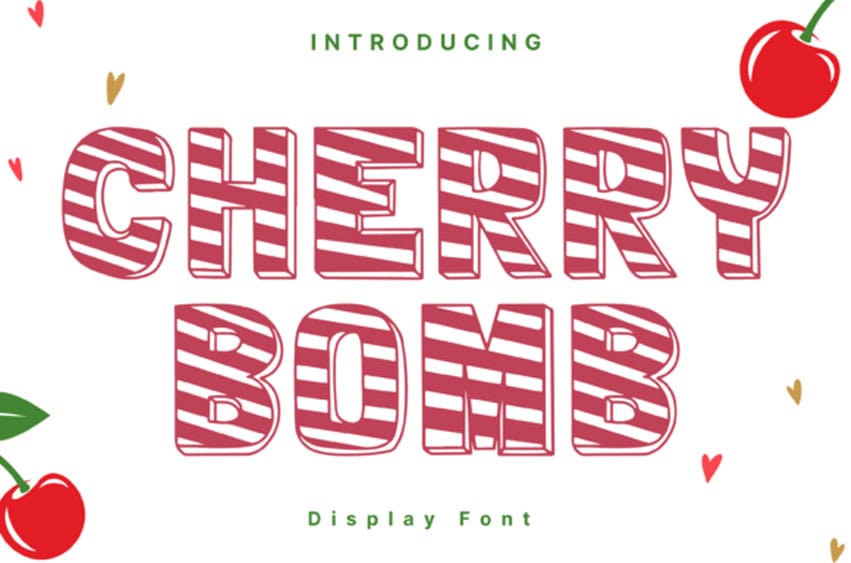
Cherry Bomb Font is a whimsical and sweet-looking decorative font.
It can easily be matched to an incredibly large set of projects, so add it to your creative ideas and notice how it makes them stand out!